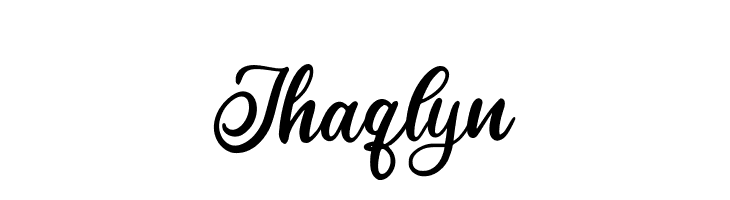
A lively and elegant script font with flowing, interconnected letterforms.
A romantic and sophisticated script font with flowing, cursive letters and ornate flourishes.
A fluid, handwritten font with elegant, connected strokes and dynamic thickness.
A dynamic and flowing script font with elegant cursive letterforms.
A dynamic and expressive script font with fluid, cursive strokes.
A dynamic handwritten font with fluid, interconnected strokes.
A modern, elegant script font with flowing, connected strokes.
An elegant script font with intricate loops and swirls, perfect for formal designs.
A modern, elegant handwritten font with slender, slightly slanted characters.